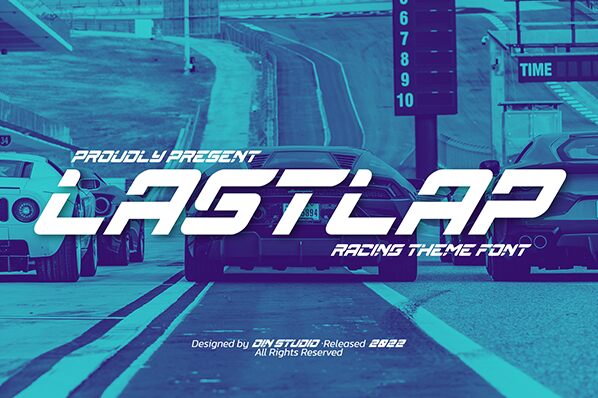
Lastlap, crafted by the creative minds at Din Studio, is a font that encapsulates the essence of modernity with its bold techno style. This display typeface boasts an aesthetic that is both striking and functional, making it a perfect choice for projects that demand attention.
The robust weight of Lastlap's characters exudes confidence, while the sleek lines and sharp angles reflect a futuristic vibe. This font doesn't just speak; it resonates with an audience looking for cutting-edge visual impact.
With its distinctive techno flair, Lastlap is ideally suited for branding initiatives, event posters, gaming interfaces, and any digital platform where a strong statement is required. Its assertive presence ensures it stands out in any context—whether on screen or in print—making Lastlap a versatile asset in your creative toolkit.
Lastlap is Sport Racing Font